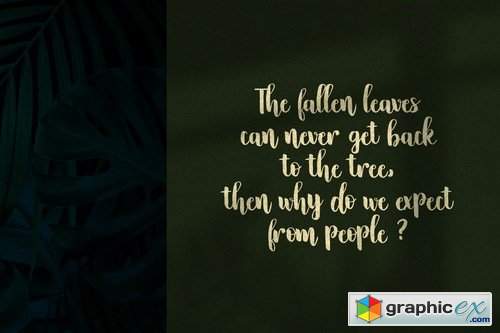
Grinland
Grinland is a handbrush script font inspired from modern calligraphy. Grinland have very rough character and organic. Suitable for nature or handdrawn theme design.